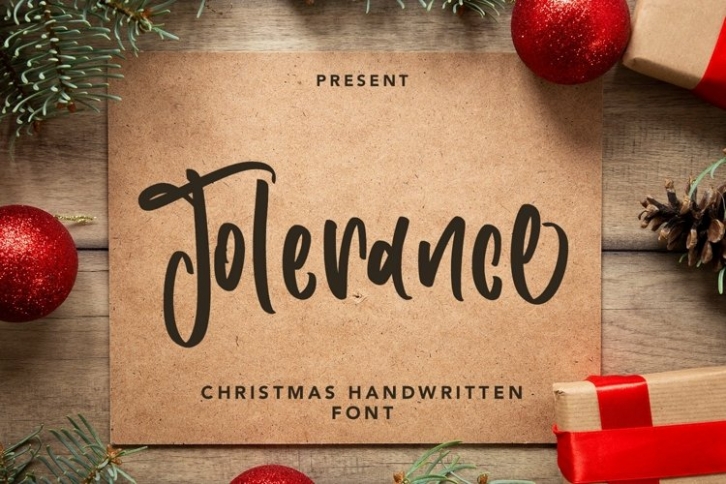
Web Tolerance is a beautiful font that was designed by plusstore. It's a great choice for designers and creatives who need such a font. It was released on August 14, 2021 and the file size is 19.32 MB. Web Tolerance may give a more youthful, expressive and casual look to your project. It is a very beautiful, refined, elegant, and high-quality font.